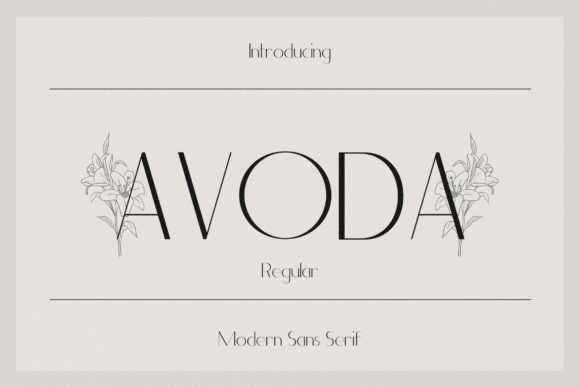
Introducing Avoda Font: The Epitome of Elegance in Sans Serif Typography
In the realm of typography, fonts play a pivotal role in conveying messages, evoking emotions, and enhancing the aesthetic appeal of any project. Among the myriad of fonts available, Avoda stands out as a beacon of elegance and sophistication. This article aims to delve into the intricacies of Avoda Font, exploring its design, features, and the multitude of benefits it offers to designers and typography enthusiasts alike.
The Genesis of Avoda Font
Avoda is an elegant sans serif font, meticulously crafted to exude a delicate and classy look. Its creation was guided by the principles of balance and variety, ensuring that it neither leans too heavily towards being thin nor succumbs to thickness. This balanced approach renders Avoda versatile, making it suitable for a wide array of applications, from digital interfaces to print materials.
Key Features of Avoda Font
- Elegant Sans Serif Design: Avoda’s sans serif design lends it a modern and clean look, making it perfect for projects that require a touch of sophistication.
- Balanced and Varied: The font’s balanced strokes and varied typography elements ensure that it remains legible and engaging across different mediums.
- Delicate yet Robust: Avoda strikes the perfect balance between delicacy and robustness, making it suitable for both digital and print applications.
The Design Philosophy Behind Avoda
The design of Avoda Font is rooted in a deep understanding of typographic principles and a keen eye for aesthetics. Its creators aimed to develop a font that could seamlessly blend into various design contexts, from editorial content to branding materials, without overpowering the message. This goal was achieved by focusing on clarity, legibility, and an overarching sense of elegance.
Core Design Principles:
- Legibility: Avoda’s design prioritizes legibility, ensuring that text remains easily readable across different sizes and resolutions.
- Versatility: The font’s versatility allows it to be used in a multitude of contexts, from headlines to body text.
- Elegance: Avoda’s elegant design ensures that it adds a touch of sophistication to any project.
Applications of Avoda Font
Avoda’s versatility and aesthetic appeal make it an excellent choice for a wide range of applications. Whether you’re working on a branding project, creating editorial content, or designing marketing materials, Avoda can enhance the visual appeal and effectiveness of your work.
Ideal Usage Scenarios:
- Branding and Logotypes: Avoda’s elegant and classy look makes it perfect for branding and logotype designs.
- Editorial Content: The font’s legibility and sophistication render it suitable for use in magazines, newspapers, and digital publications.
- Marketing and Advertising: Avoda can add a touch of elegance to marketing materials, including brochures, flyers, and digital ads.
Why Choose Avoda Font?
In a world flooded with typography options, Avoda Font distinguishes itself through its unique blend of elegance, versatility, and legibility. Choosing Avoda for your projects can elevate the aesthetic appeal of your work, engage your audience more effectively, and convey your message with clarity and sophistication.
Benefits of Using Avoda:
- Aesthetic Appeal: Avoda adds a touch of elegance and sophistication to any project.
- Versatility: The font’s versatility makes it suitable for a wide range of applications.
- Legibility: Avoda’s design prioritizes legibility, ensuring that your message is conveyed clearly.
Avoda Font represents a significant addition to the world of typography, offering a unique blend of elegance, versatility, and legibility. Its design philosophy, rooted in balance and aesthetic appeal, makes it an excellent choice for designers and typography enthusiasts looking to elevate their projects. Whether you’re working on branding, editorial content, or marketing materials, Avoda Font can enhance the beauty and effectiveness of your work.
As you explore the vast possibilities that Avoda Font has to offer, it’s clear that this elegant sans serif font is poised to leave a lasting impact on the design landscape. Its ability to balance delicacy with robustness, and its suitability for a wide array of applications, make it a valuable asset for anyone looking to add a touch of class and sophistication to their projects.